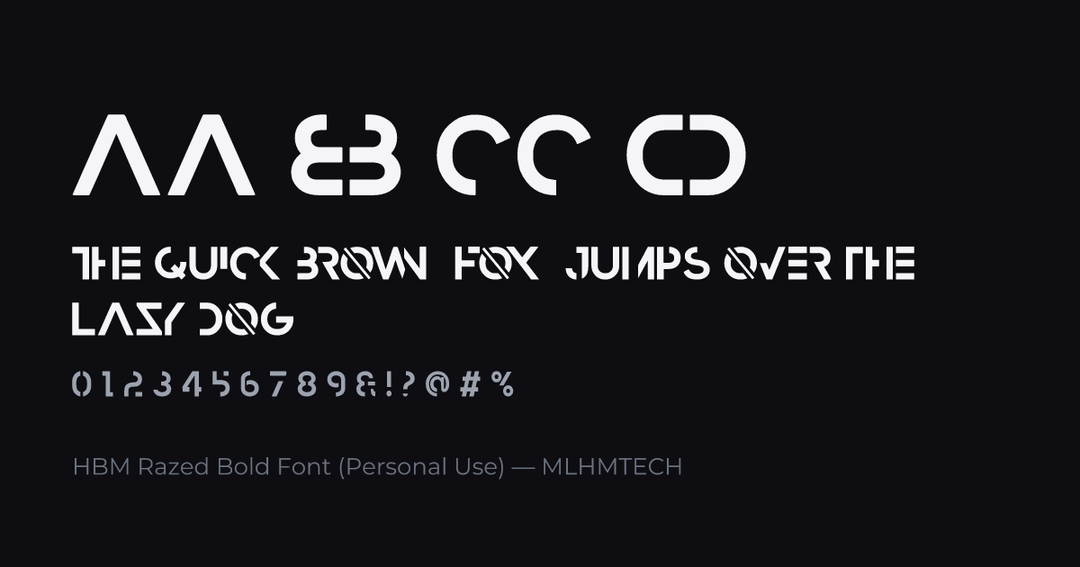
HBM Razed Bold Font (Personal Use)
HBM Razed Bold is a bold, impactful display font perfect for headlines and titles. This personal-use license allows you to elevate your creative projects with a distinctive typeface.
HBM Razed Bold is a high-contrast, bold display font that commands attention. Its sharp edges and strong presence make it ideal for posters, social media graphics, and video titles. The font is provided in TTF format, ensuring compatibility with most design software.
Add a touch of bold personality to your next project with HBM Razed Bold. Whether you're designing a movie poster, a YouTube thumbnail, or a brand logo, this font will make your text stand out.